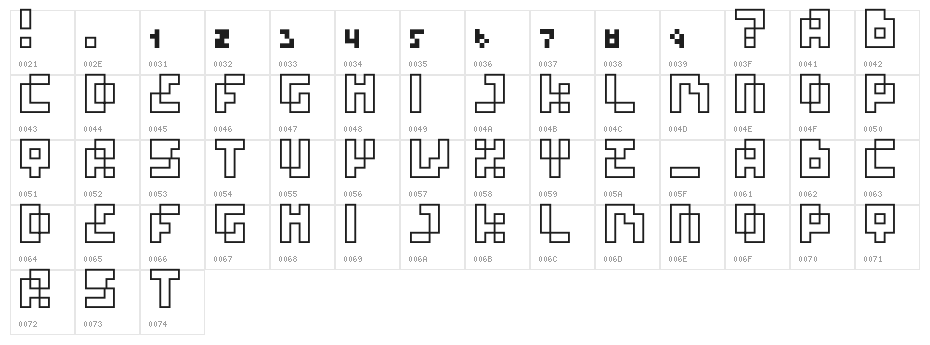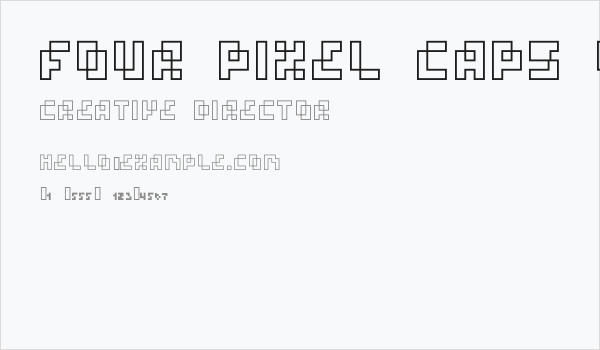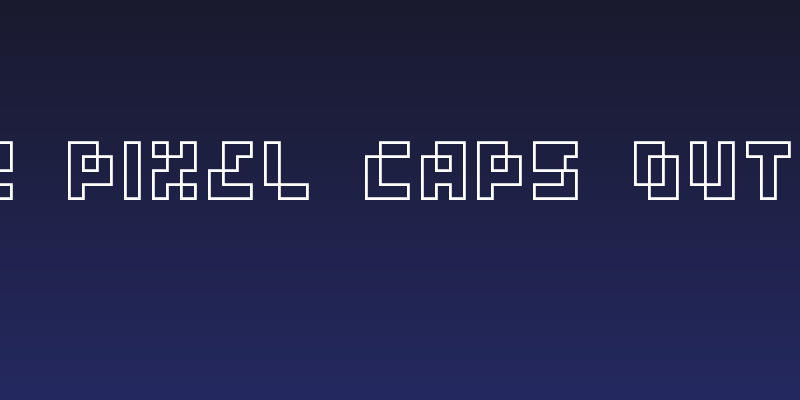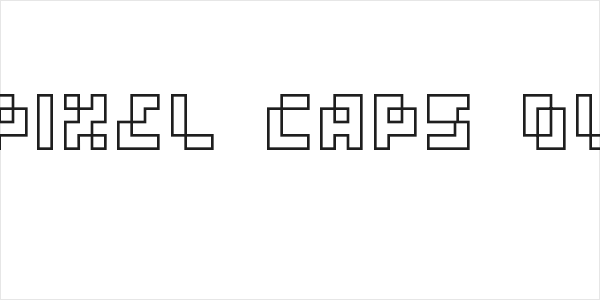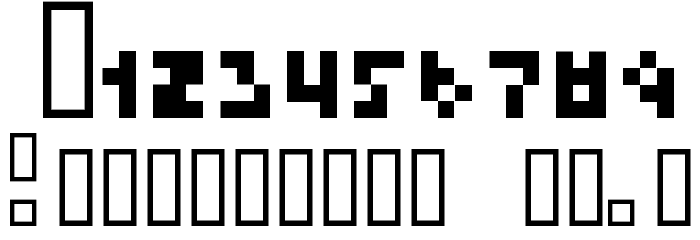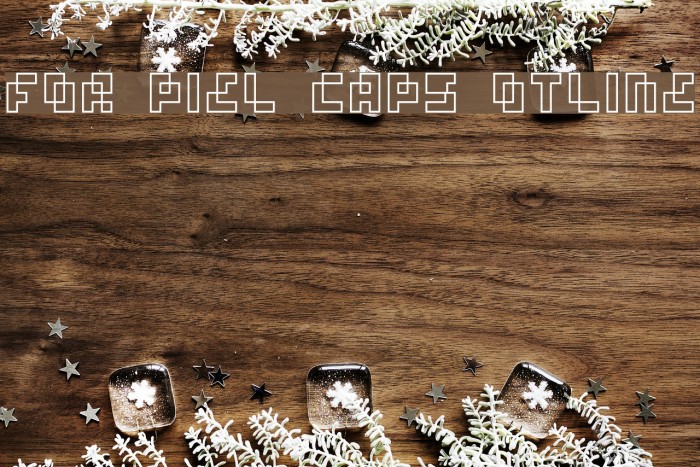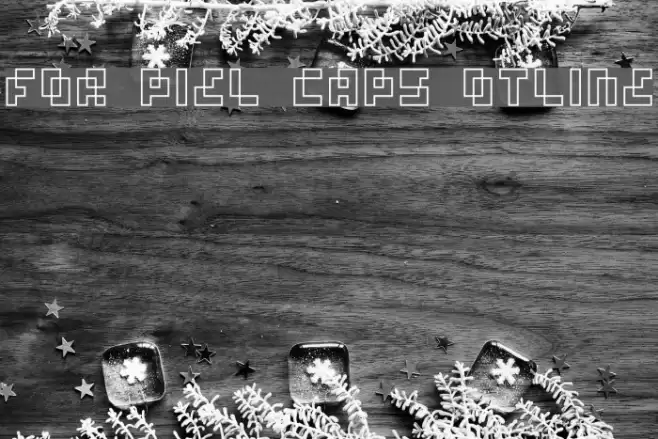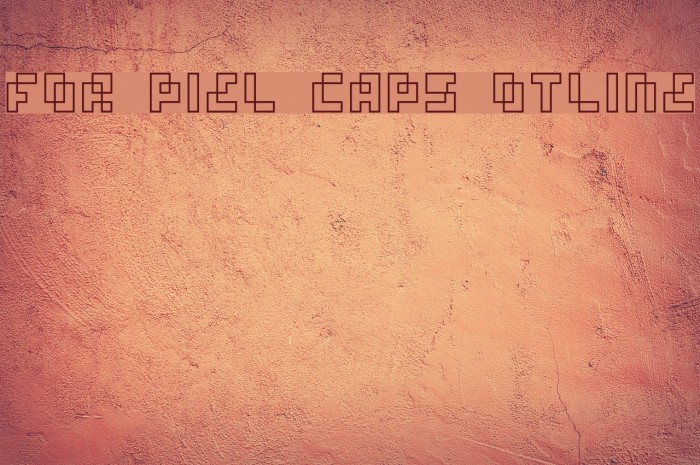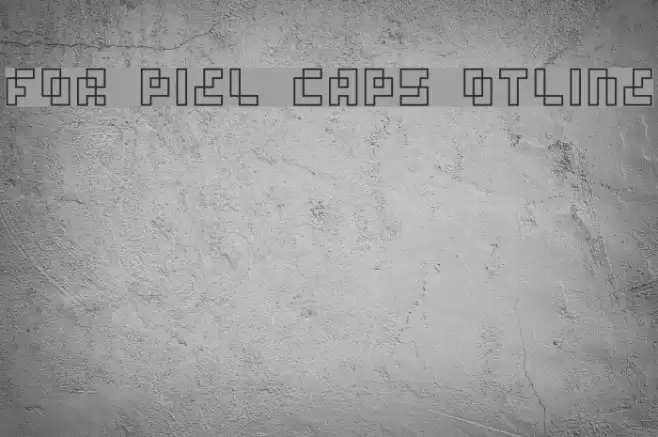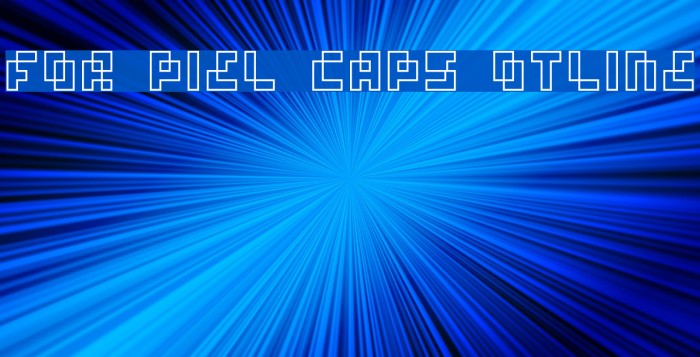
four pixel caps outline Font
four pixel caps outline Description
This font features a distinctive pixelated outline style, reminiscent of early digital or video game aesthetics. Each character is constructed with a bold, geometric outline, creating a sense of structure and uniformity. The uppercase and lowercase letters share a similar design, emphasizing the pixelated theme. Numbers and special characters maintain this consistent style, ensuring a cohesive look across all text. The font's unique appearance makes it stand out, ideal for projects that require a retro or digital feel.
| Overall Style | Retro, Digital |
| Proposed Projects | Ideal for video game design, digital art projects, retro-themed posters, and tech-related branding. |